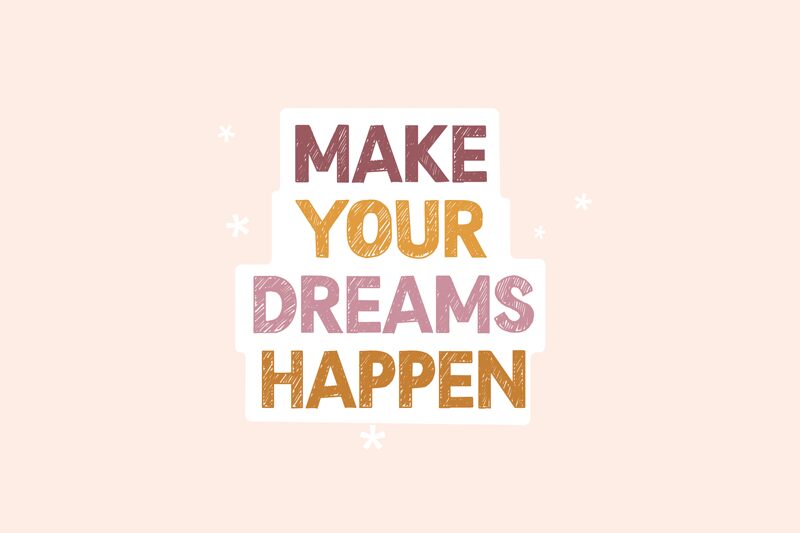
ButterCookie-Regular
Butter Cookie Sans, designed by Letterflow, is a delightful and exuberant display font that will bring a burst of joy to your projects.
With its extra-bold weight and cartoon style, this font is perfect for creating eye-catching headlines, posters, logos, and social media graphics. Its chubby characters and lighthearted nature make it an ideal choice for children's books, playful branding, party invitations, and any design that needs a touch of whimsy.
Let Butter Cookie Sans be the sweet icing on the cake of your creative endeavors!
Butter Cookie Sans